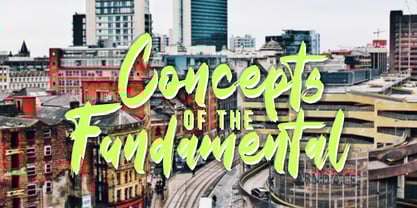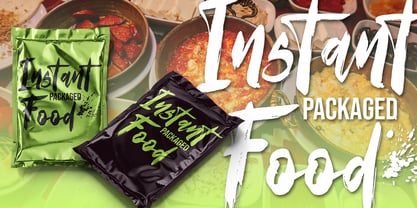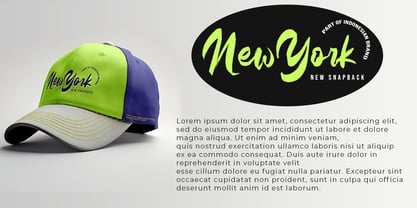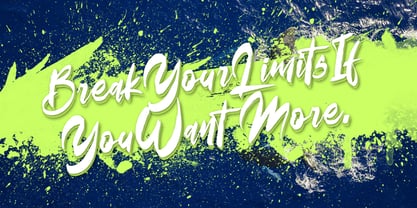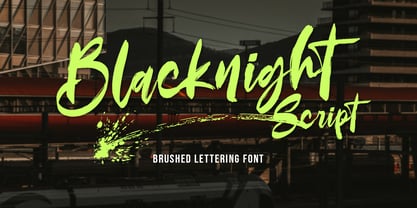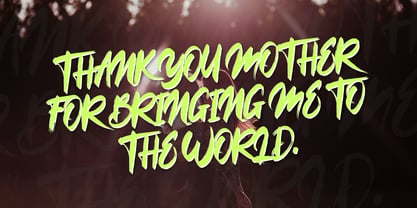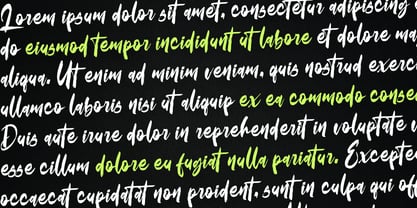
Blacknight Script
von Struggle Studio
Die Schriftfamilie Blacknight Script wurde von Andri Kurniawan entworfen und von Struggle Studio veröffentlicht. Blacknight Script enthält 1 Stile. Mehr über diese Familie
Blacknight is a bold and expressive brushed lettering font. It features hand-drawn brush strokes that create an energetic, urban, and confident look. The thick, uneven strokes retain strong legibility while delivering a sense of motion and raw personality.
The bright neon green color used in the main text enhances its modern, edgy, and attention-grabbing appeal—perfect for streetwear branding, music event posters, creative campaigns, or social media content that calls for a strong and standout presence.
The paint splatter element adds a touch of grunge and street art, reinforcing the free-spirited and non-traditional character of this font.
Designer: Andri Kurniawan
Foundry: Struggle Studio